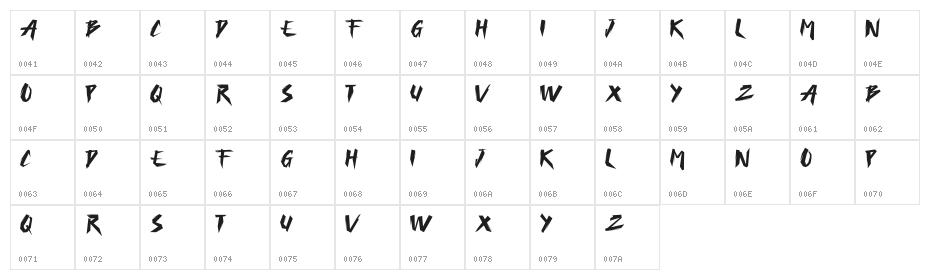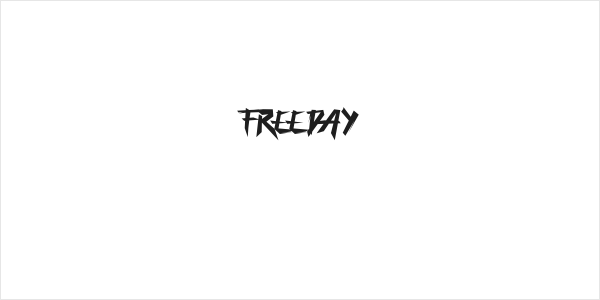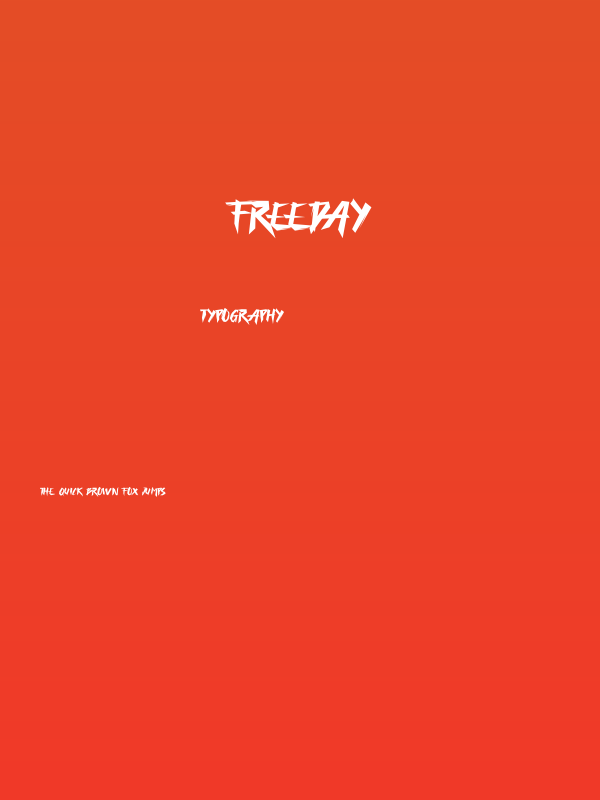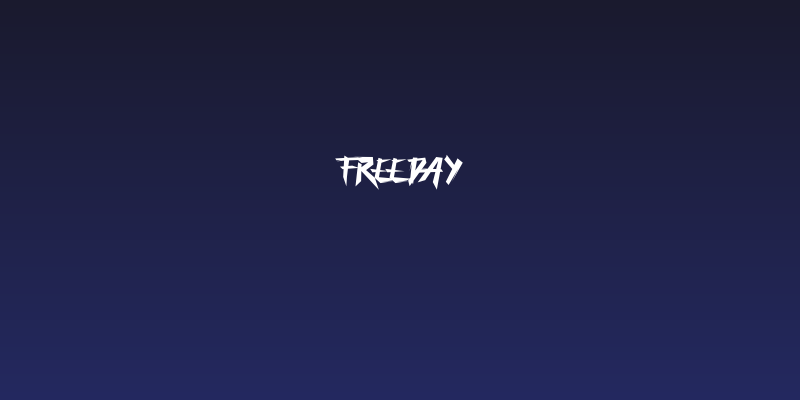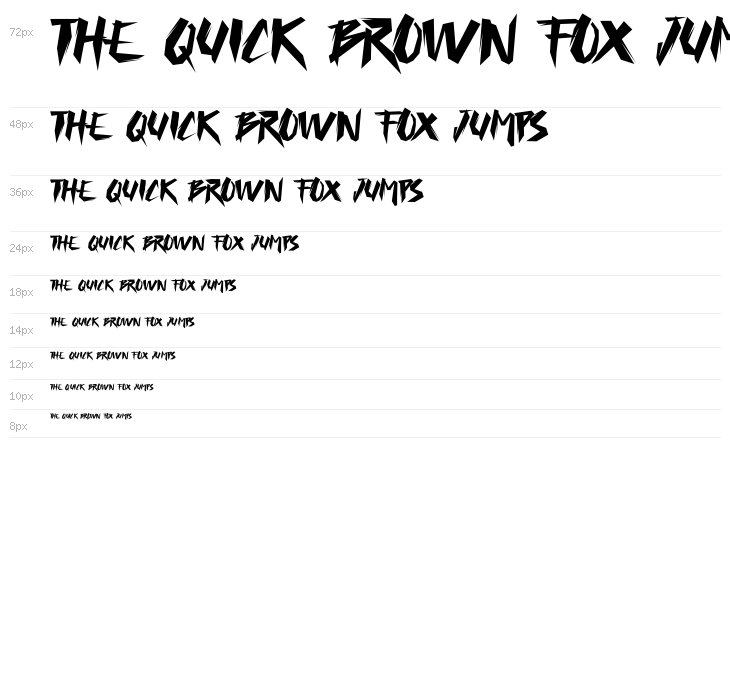
FREEDAY Font
FREEDAY Description
This font features a bold and dynamic style with sharp, angular lines that give it an edgy and aggressive appearance. The strokes are thick and jagged, creating a sense of movement and energy. Each character is uniquely crafted with a sense of urgency and intensity, making it stand out prominently. The uppercase letters are particularly striking, with exaggerated angles and a graffiti-like aesthetic. This font is perfect for projects that require a bold statement and a modern, rebellious vibe.
| Overall Style | Modern, Edgy |
| Proposed Projects | Ideal for streetwear branding, music album covers, skateboarding graphics, and urban-themed posters. |